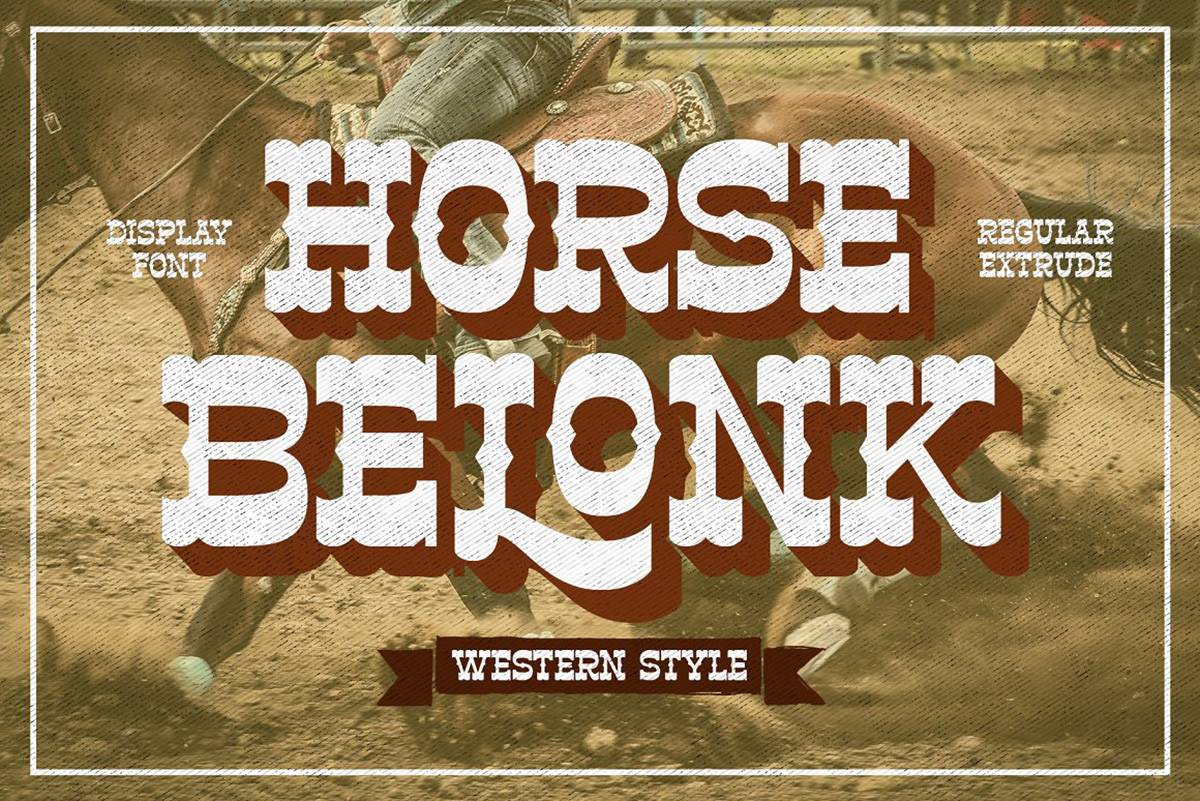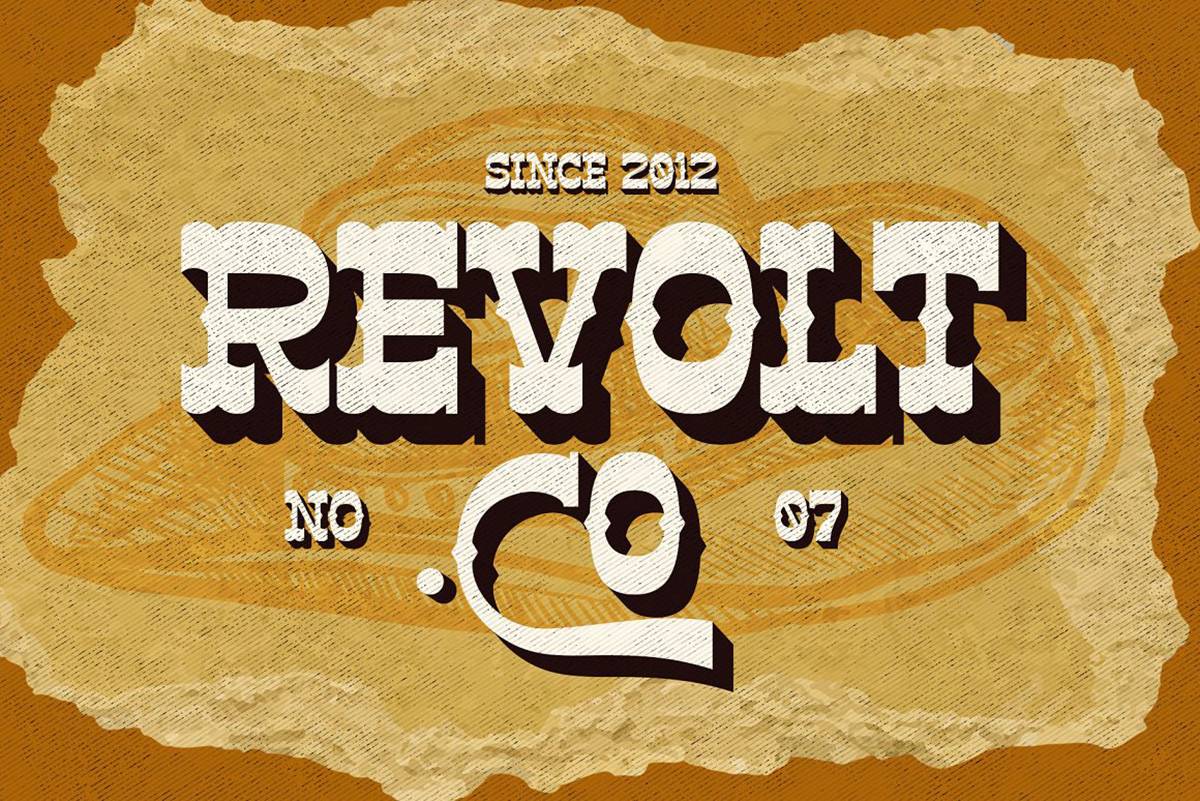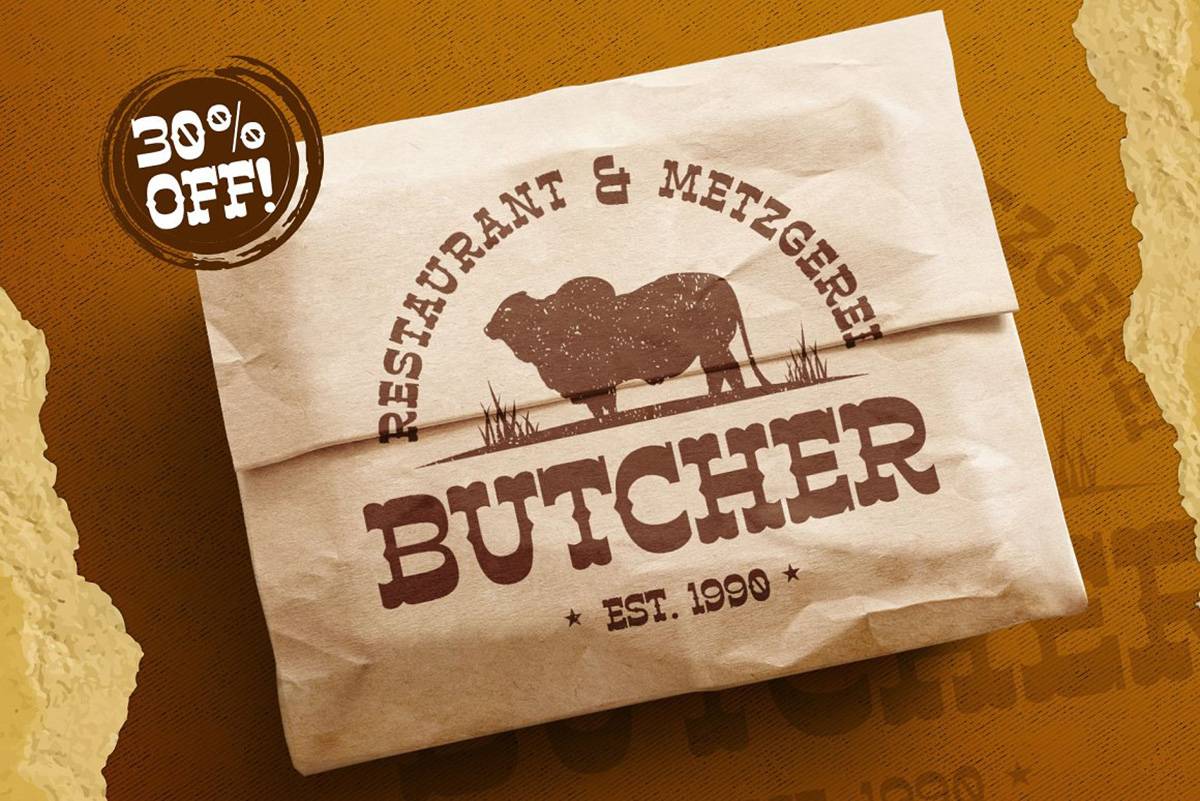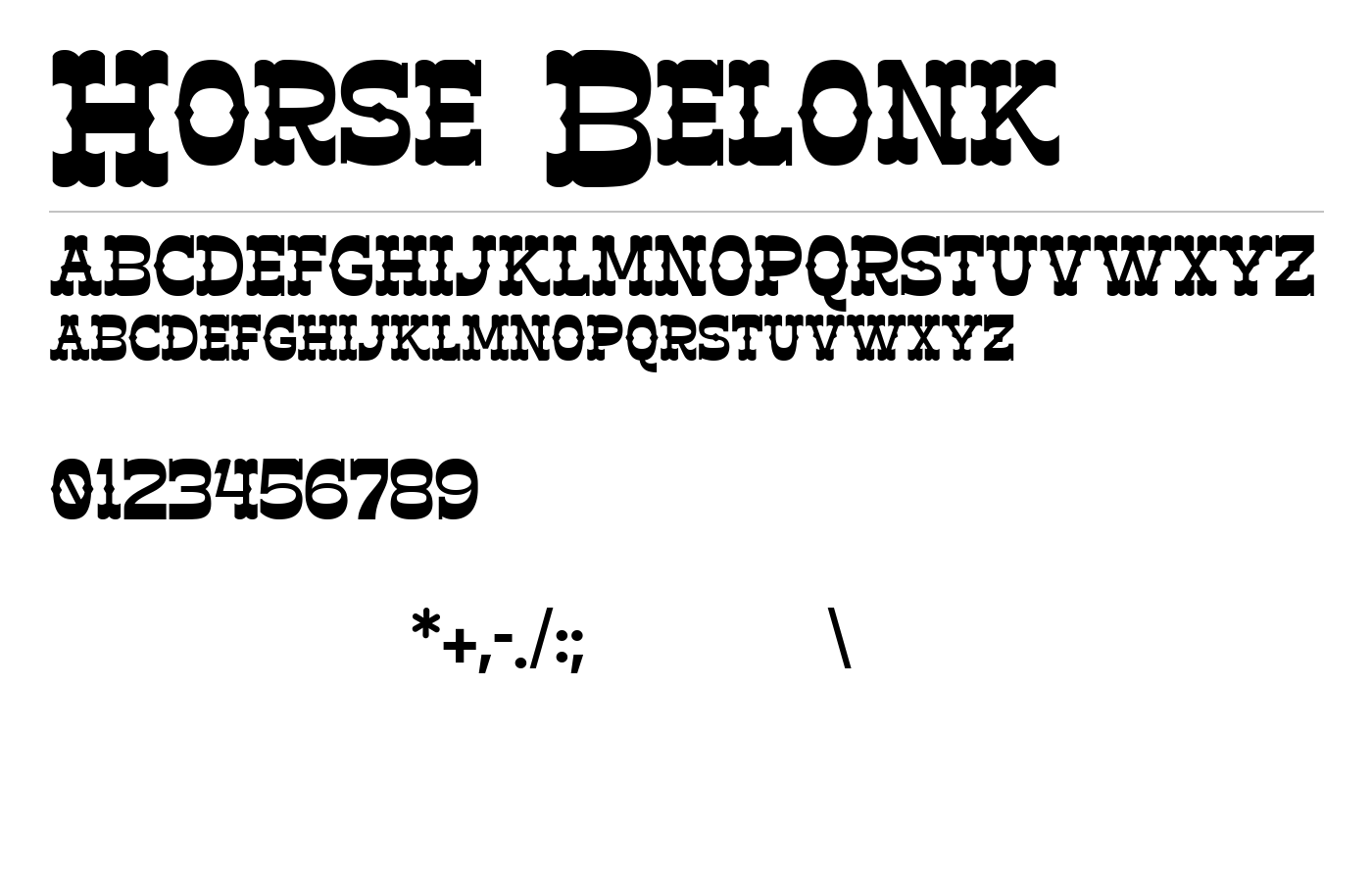
Horse Belonk is a bold slab serif font with a strong, vintage western feel, characterized by its thick, blocky serifs and high contrast between thick and thin strokes. Its distinctively ornamental letterforms and compact spacing make it perfect for eye-catching headlines, logos, and branding that aim to evoke a rustic, bold, or retro atmosphere. This font works especially well in designs that need a sturdy, impactful presence with a touch of classic Americana style.
Horse Belonk Font
About Horse Belonk Font